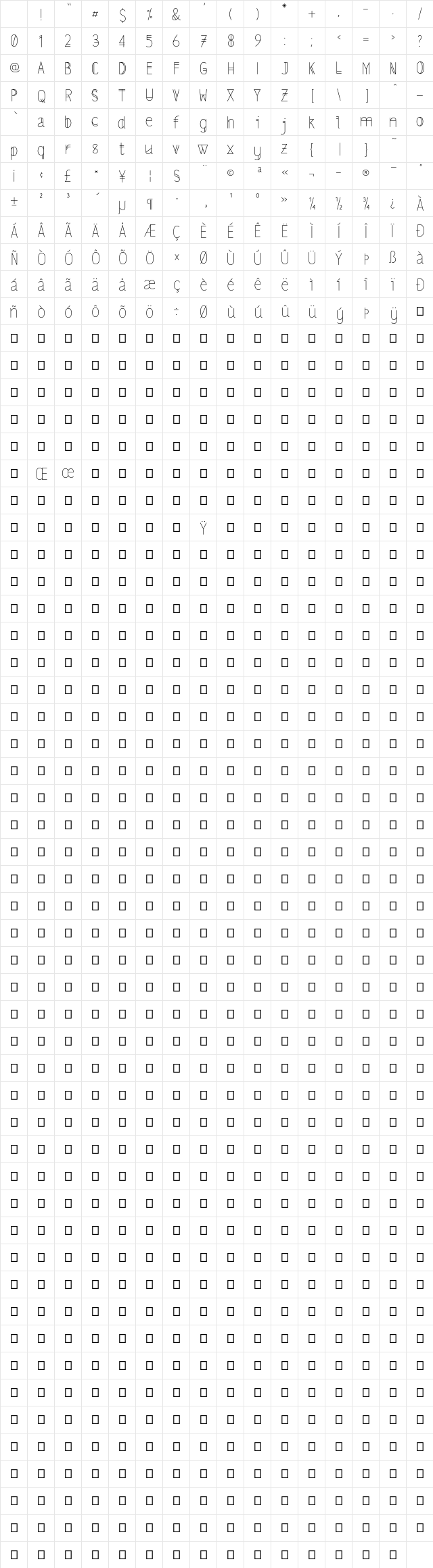
Complete LS LightAlt glyph index. Displaying only characters natively supported by LS LightAlt font.
LS is a composed and adaptable typeface that performs quietly and consistently across a wide range of design contexts. Its slender proportions lend an understated elegance to any composition.